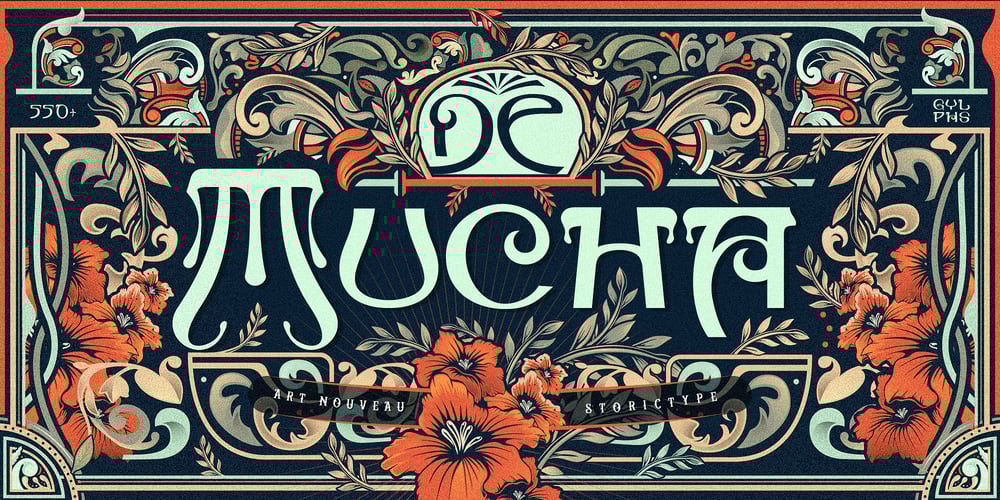
De Mucha Font Family was designed by panji nugroho and published by Storictype. De Mucha contains 1 styles and family package options. De Mucha Typeface, Art Nouveau is an artistic style that emerged in the late 19th and early 20th centuries combining classic typography with awesome features bring classic touch on this period. It’s known for its flowing, organic forms inspired by nature, like curvy lines and flower motifs. It features over 500 GylphsThose all will make you work easily to create : Header, Book Cover, Posters, Logos, Print, Quotes, Headers, Clothing, Labels, Packaging etc.Features: Layered font system Character Set A-Z Ligatures Stylistic Alternate (ss01) Stylistic Alternate (ss02) Numerals & Punctuations (OpenType Standard) Accents (Multilingual characters) Above the description of this font, I hope you’re satisfied with what I have created. if there’s anyone who purchase and find some problem, don`t hesitate to using product support- Thanks and enjoy designing